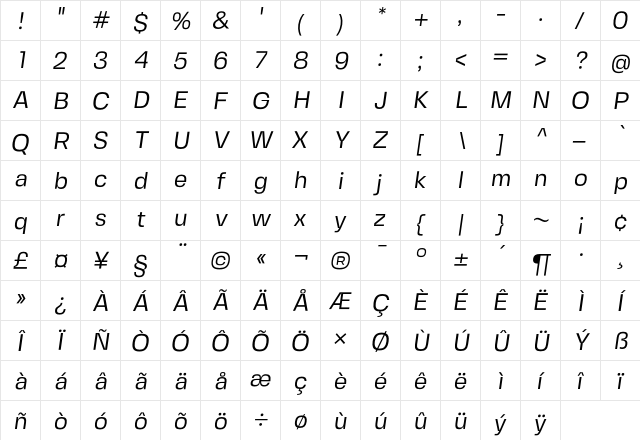
Fivo Sans Modern Italic
| Foundry | Alexander Slobzheninov |
| Designer | Alexander Slobzheninov |
Design Context for Fivo Sans Modern Typeface
Fivo Sans Modern offers clean, dependable letterforms without strong stylistic allegiance, making it a practical choice for designers who need flexibility. The slanted form adds forward momentum and visual energy.
Pro Tip: Try Fivo Sans Modern for annotation and caption copy alongside an upright companion — the contrast in angle creates a dynamic but ordered typographic system.